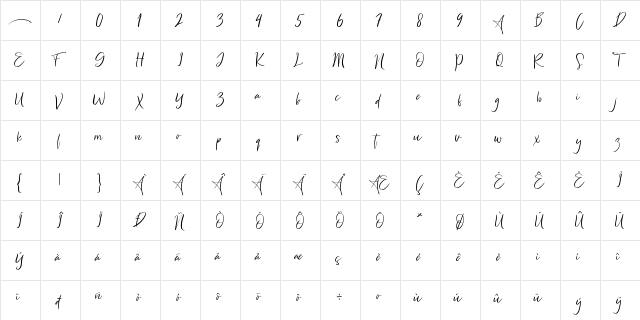
Freaks Regular
| Designer | AminMario 2019 |
Design Context for Freaks Typeface
Freaks is a composed and adaptable typeface that performs quietly and consistently across a wide range of design contexts.